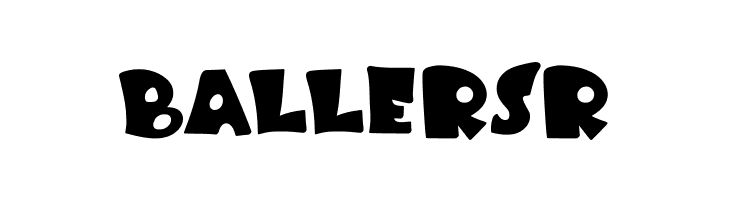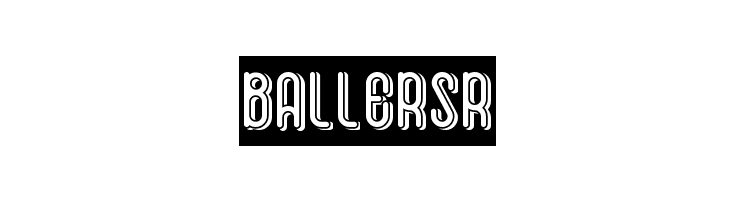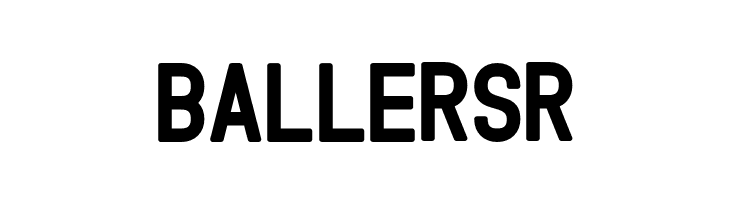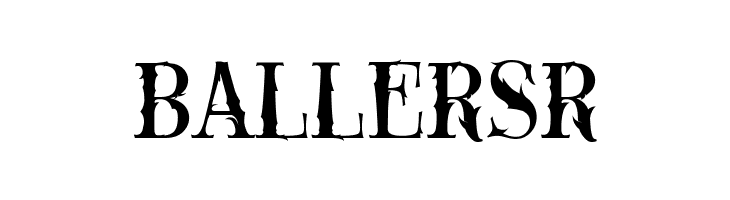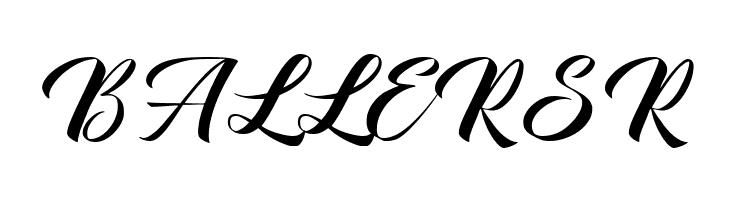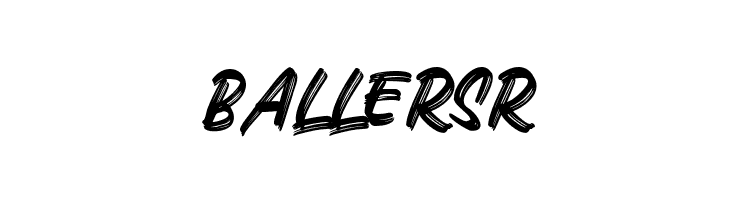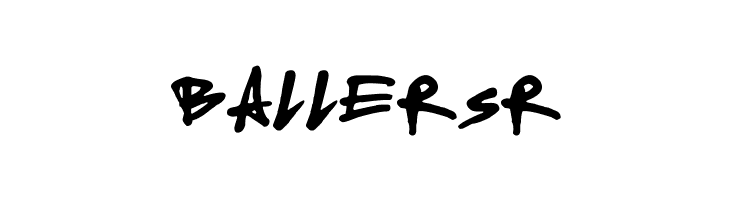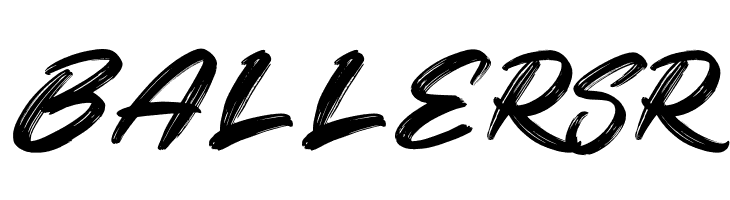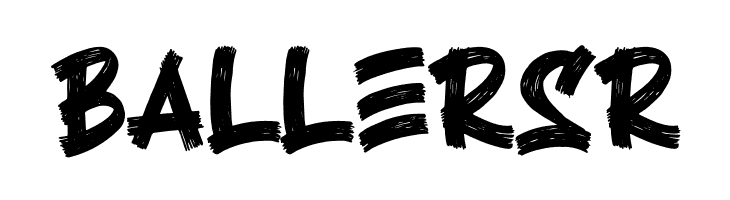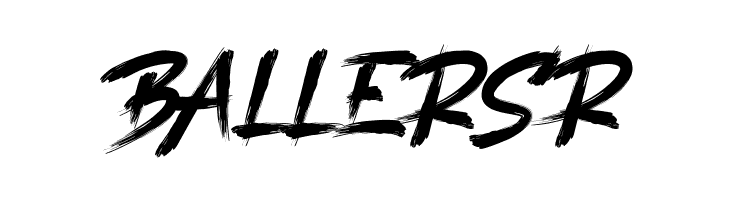
• Black Pumpkin
A bold, brush-style font with dynamic, expressive strokes.
• Black Quote
A classic and elegant script font with fluid, connected strokes.
• Black Racer
A bold, expressive handwritten font with thick, uneven strokes.
• BLACK RAIN
A bold, jagged font with a brush-like texture for dramatic impact.
• Black Rain
A bold, gothic blackletter font with high contrast and ornate details.
• Black Rainbow Script FREE
An elegant script font with flowing, ornate letters and medium contrast.
• Black Rainbow Serif FREE
A bold, high-contrast serif font with decorative elements and a dramatic style.
• Black Raint
A bold, dynamic brush script font with a hand-painted look.
• Black Range Free Regular
A bold, brush-style font with dynamic and expressive strokes.
• Black Rat Institute
A bold, playful font with chunky, irregular forms and a hand-drawn feel.
• Black Rat Punk Band
A gritty, distressed font with a rebellious punk rock aesthetic.
• Black Raven Personal Use
• Black Ravens Normal
A bold, brush-style font with a dynamic and expressive hand-drawn look.
• Black Retro
A bold, retro font with a playful, hand-drawn style.
• Black RoadsDEMO
A bold, geometric sans-serif font with a modern, industrial feel.
• Black Roasters 1
A classic cursive font with elegant, flowing lines and a sophisticated appearance.
• Black Rocker
A bold, brushstroke-style font with a dynamic, hand-drawn appearance.
• Black Rocket
A bold, cursive script font with dynamic and elegant letterforms.
• Black Rocky - Personal Use
• Black Rodeo
A bold, distressed font with a vintage, weathered look.
• Black Romance
A playful, casual handwritten font with smooth curves and consistent height.
• Black Romans